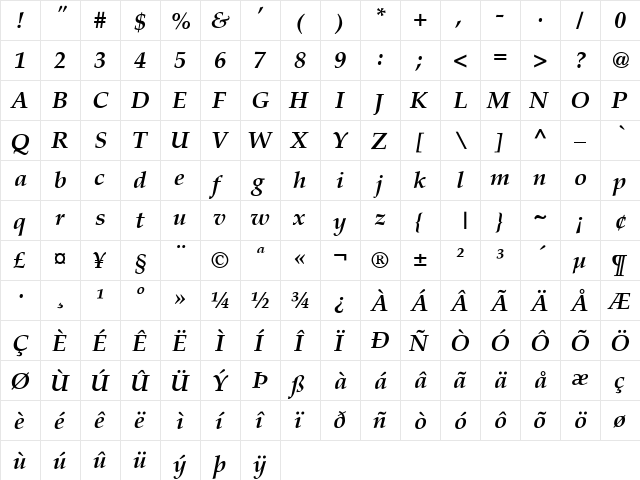
PalmSprings Bold Italic
Design Context for PalmSprings Typeface
PalmSprings is a composed and adaptable typeface that performs quietly and consistently across a wide range of design contexts. The slanted form adds forward momentum and visual energy. Its bold stroke weight gives it real presence on the page.
Pro Tip: Try PalmSprings for annotation and caption copy alongside an upright companion — the contrast in angle creates a dynamic but ordered typographic system.